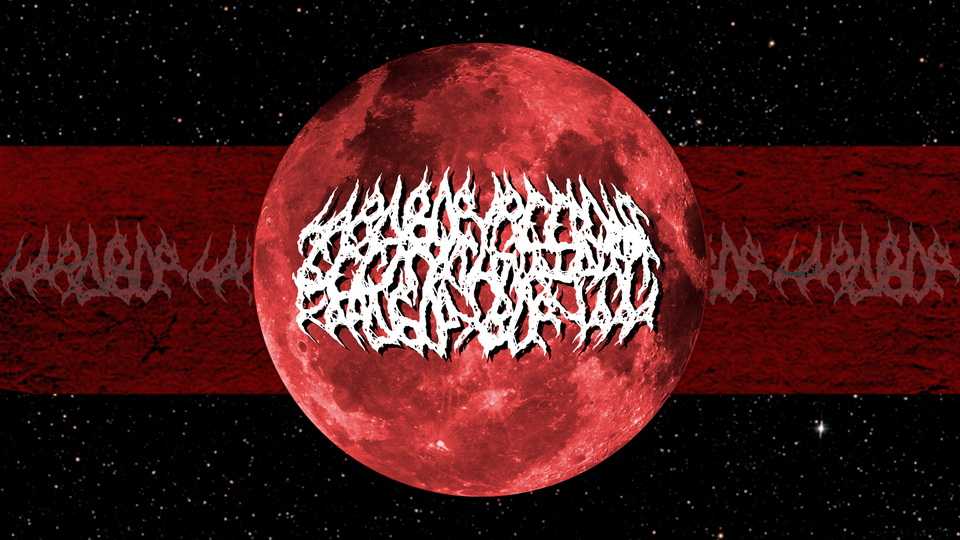
Download Hardbor font, a display typeface inspired by metalcore logos. Hardbor font is based on changing distance and direction of characters for greater variability and to give symmetry to words.